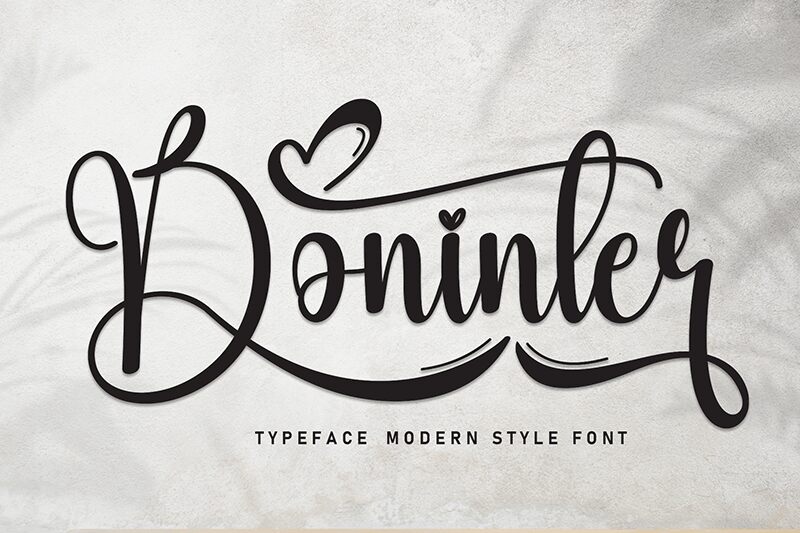
Boninter font
Boninter
Our collection features special creative products designed to provide an extraordinary experience. The latest style letters are perfectly suited for a variety of applications, including wall displays, wedding invitations, logos for social media posts, advertisements, product packaging, product designs, labels, photography, watermarks, invitations, stationery, and any project that demands exquisite handwriting.